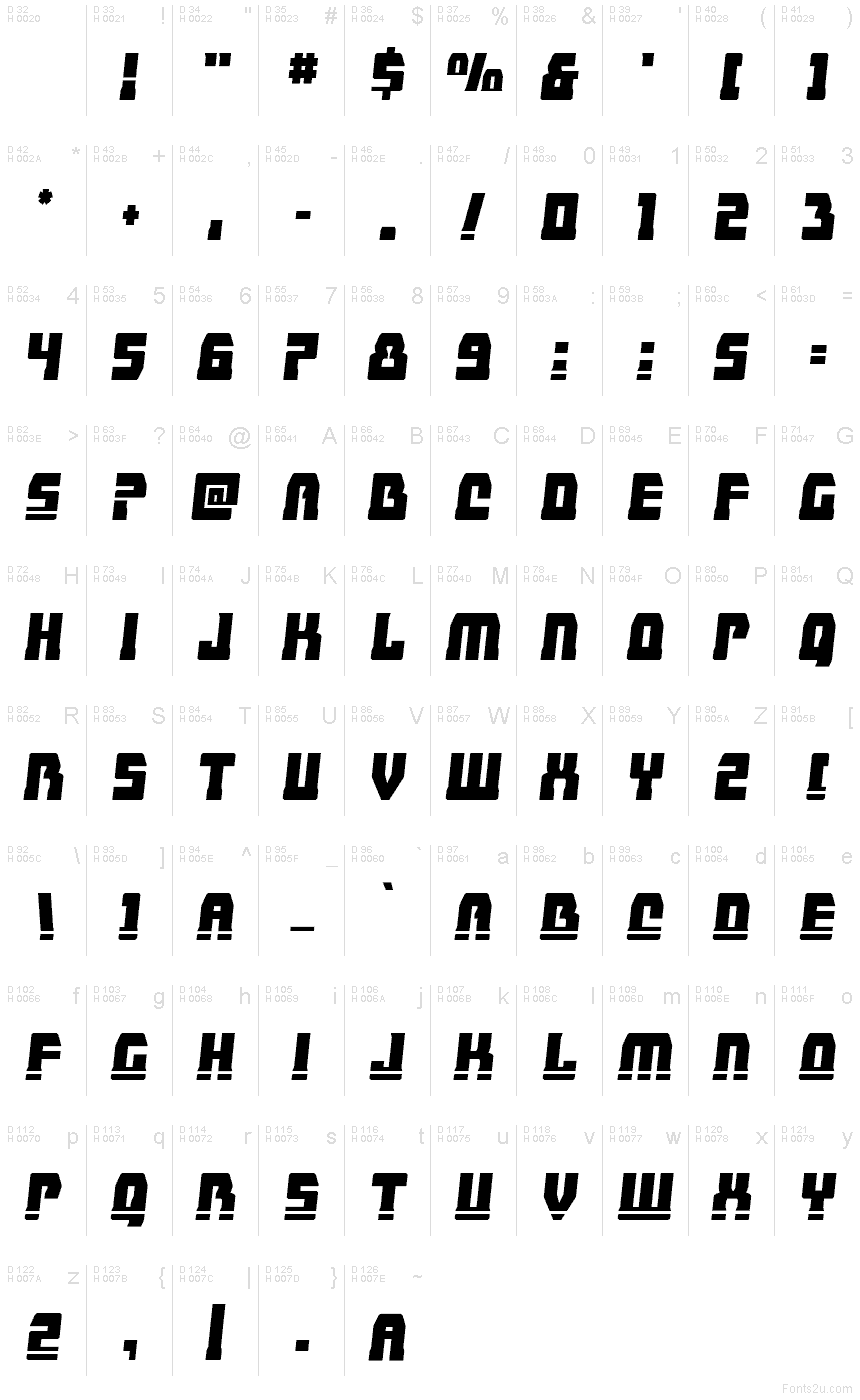
Librator Stripe Semi-Italic
Librator Stripe Semi-Italic font by Iconian Fonts is a free techno display font with a strong visual presence. Designed with blocky geometric letters, this bold font reflects a retro aesthetic thanks to its angular details. It supports your text giving it an instantly impactful appearance that users will not be able to ignore.
Use it on posters, event invitations, CD covers, board game packaging designs, art exhibits announcements, or inside magazines and newspapers. Other use case ideas include creating book titles for online and printed novels, logo design (apps and other), interface design such as games etc.